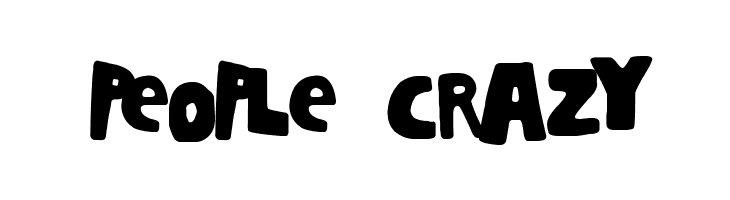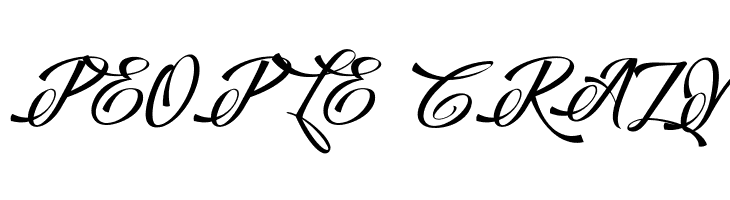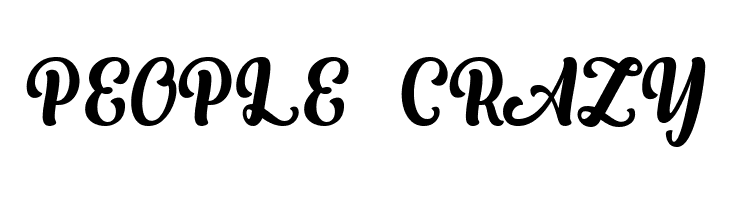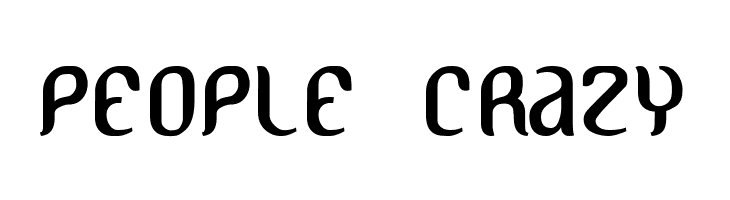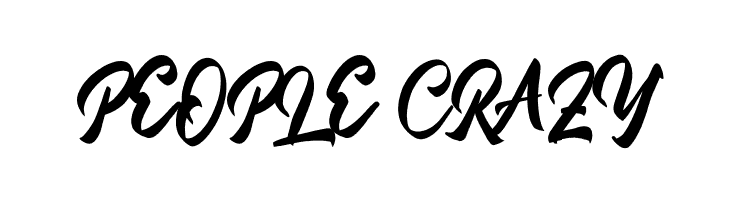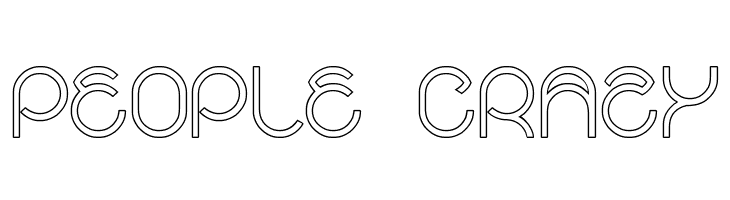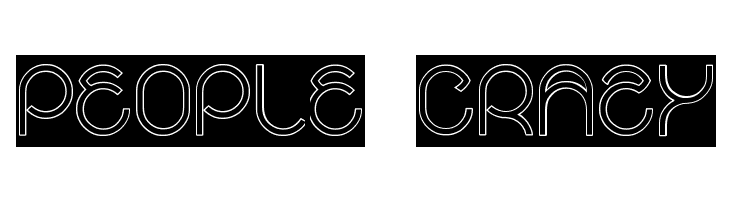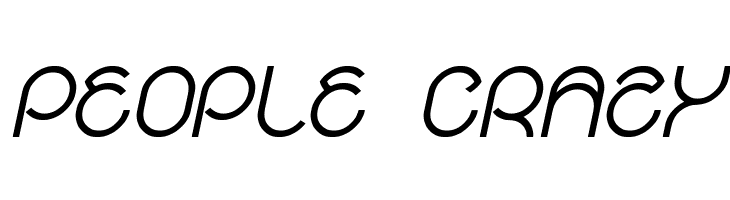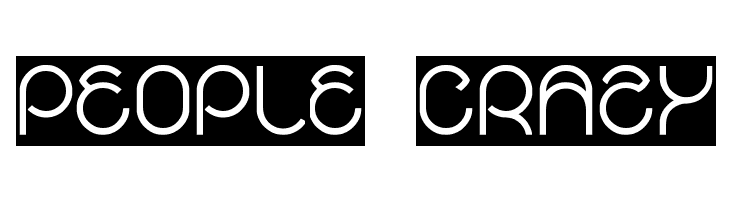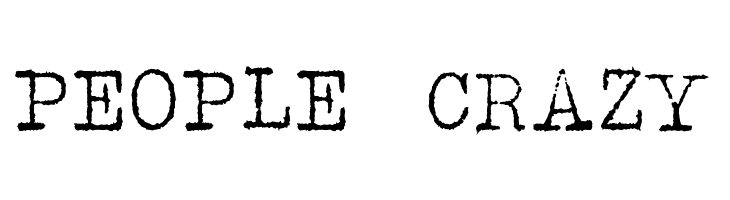
• Albatross Italic
• Albatross Regular
• Albelia-Script
A graceful script font with flowing, connected strokes and a handwritten style.
• Albelia-Script
A flowing, cursive script font with elegant, interconnected characters.
• Albemarle Demo
• Albeon Round
A rounded, modern typeface with clean lines and a friendly appearance.
• AlbergueBoaVontade
A modern, geometric font with clean lines and uniform stroke width.
• ALBERO
A modern serif font with elegant lines and balanced proportions.
• Albert Regular
• Albert Text Bold
A bold, blackletter-style font with sharp angles and dramatic curves.
• Albert Text UNZ1
A bold, dramatic font with vintage and gothic influences, featuring thick strokes and sharp angles.
• Alberteen
A bold, cursive font with a playful, handwritten style.
• Alberteen Italic
A bold, italic script font with dynamic, flowing letterforms.
• Alberth Demo
A whimsical, handwritten font with tall, narrow letterforms and playful curves.
• Albertho
A bold, expressive script font with smooth, flowing characters.
• Albertine Bold
A bold, playful script font with interconnected, flowing characters.
• Albertini Regular
A playful, flowing script font with elegant curves and connected strokes.
• Albertino
A modern, geometric font with clean lines and rounded edges.